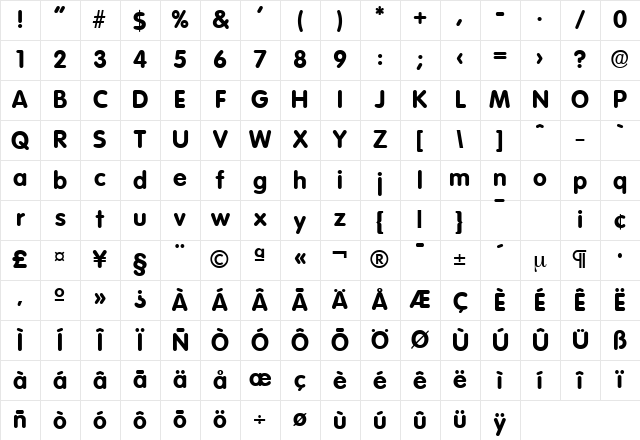
Complete Volkswagen-Serial-ExtraBold Regular glyph index. Displaying only characters natively supported by Volkswagen-Serial-ExtraBold Regular font.
Volkswagen-Serial-ExtraBold is a composed and adaptable typeface that performs quietly and consistently across a wide range of design contexts. Its bold stroke weight gives it real presence on the page.